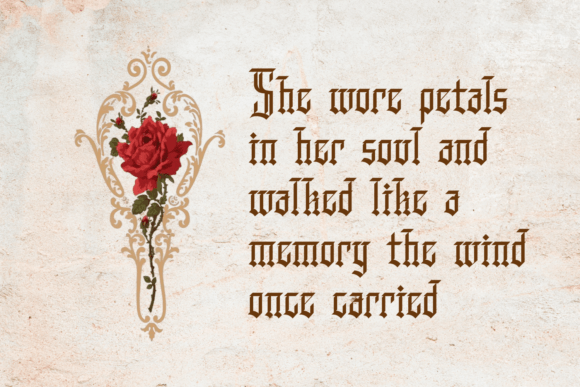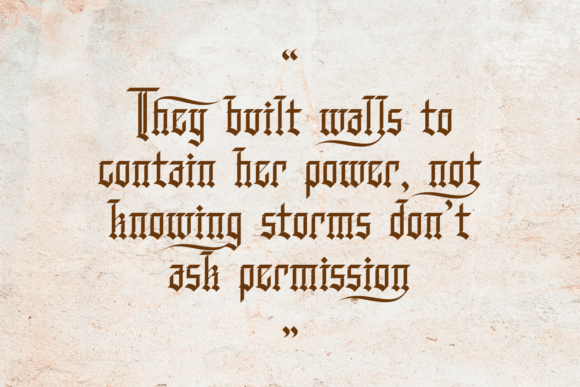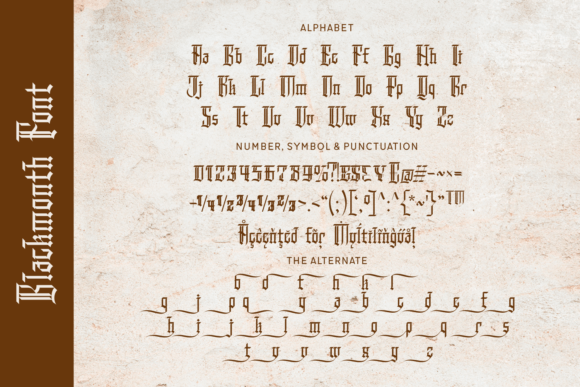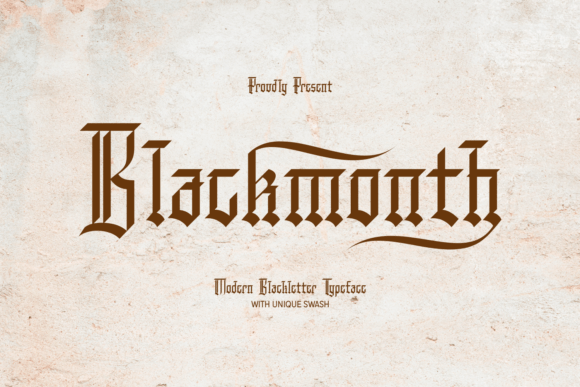
Unveiling Blackmonth Font: A Modern Blackletter Typeface
In the realm of typography, the quest for a font that marries history with modernity is a perpetual one. For designers and crafters seeking a typeface that embodies both the elegance of traditional Gothic letterforms and the uniqueness of contemporary design, Blackmonth Font emerges as a stellar choice. This modern blackletter typeface is not just a font; it’s a statement piece that brings a historical yet contemporary feel to branding, headlines, and any project requiring a touch of sophistication and character.
The Essence of Blackmonth Font
Blackmonth Font is a promotional masterpiece that redefines the boundaries of blackletter typography. At its core, it blends the robust, intricate designs of traditional Gothic scripts with the flair of elegant, unique swashes. This fusion results in a typeface that is both a nod to the past and a leap into the future, offering designers a versatile tool for creating visually compelling content.
Key Features of Blackmonth Font
- Traditional Gothic Roots: Blackmonth Font is deeply rooted in Gothic typography, offering bold and dramatic letterforms that are reminiscent of medieval manuscripts and Gothic architecture.
- Elegant Swashes: What sets Blackmonth apart is its incorporation of elegant, unique swashes. These decorative strokes add a level of sophistication and flair to the typeface, making it perfect for headlines, titles, and branding that requires a touch of elegance.
- Modern Twist: Despite its historical roots, Blackmonth Font has a distinctly modern feel. Its clean lines, balanced proportions, and the innovative use of swashes ensure that it stands out in contemporary design contexts.
- Versatility: Blackmonth Font is incredibly versatile, suitable for a wide range of applications from luxury branding and advertising to packaging and editorial design.
Applications of Blackmonth Font
The unique characteristics of Blackmonth Font make it an excellent choice for various design projects. Here are some of the areas where Blackmonth truly shines:
- Branding and Logotypes: The distinctive and stylish letterforms of Blackmonth make it an ideal choice for branding, especially for companies looking to convey a sense of tradition, luxury, and sophistication.
- Headlines and Titles: In editorial design, advertising, and digital media, Blackmonth Font can be used to create compelling headlines and titles that capture attention and convey a sense of drama and elegance.
- Packaging Design: For product packaging, Blackmonth offers a way to stand out on crowded shelves. Its unique blend of traditional and modern elements can help in creating eye-catching and memorable packaging.
Why Choose Blackmonth Font?
In a sea of typefaces, Blackmonth Font stands out for several reasons:
- Unique Aesthetic: It offers a unique aesthetic that combines the best of Gothic typography with modern design sensibilities.
- High Versatility: Its versatility means it can be used across a variety of projects, from digital platforms to print materials.
- Design Excellence: Crafted with attention to detail, Blackmonth Font is a testament to design excellence, offering a high level of legibility and aesthetic appeal.
Blackmonth Font is more than just a typeface; it’s a design statement. For those seeking a font that brings together the historical essence of Gothic lettering with the sophistication of modern typography, Blackmonth is an unparalleled choice. Whether you’re a designer looking to elevate your branding, a craftsperson aiming to add a unique touch to your projects, or simply a typography enthusiast, Blackmonth Font is sure to inspire and enhance your creative endeavors.